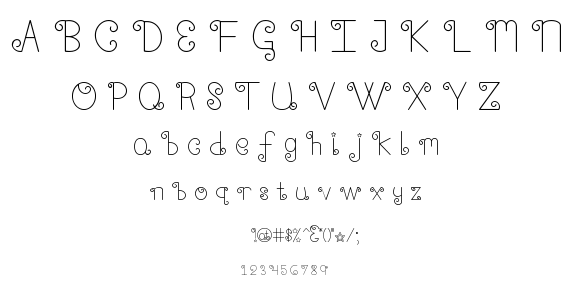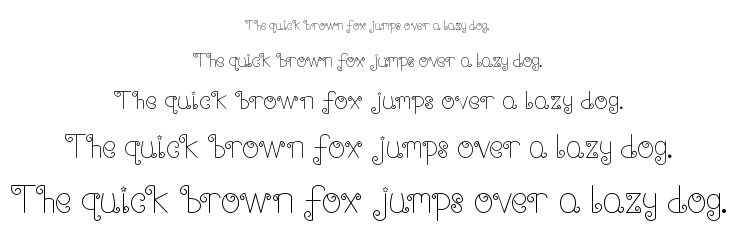
This font has a “t” that curls over. It can be accessed with the _ key (underscore). It only works properly with the following letters: a, c, e, m, n, o, s.
Example: If you spell the word ‘Dreamt’, you would type D-r-e-a-m and then an underscore to get the “t” that curls over 🙂 Let me know if you have any questions and I will be happy to help you the best I can 😀